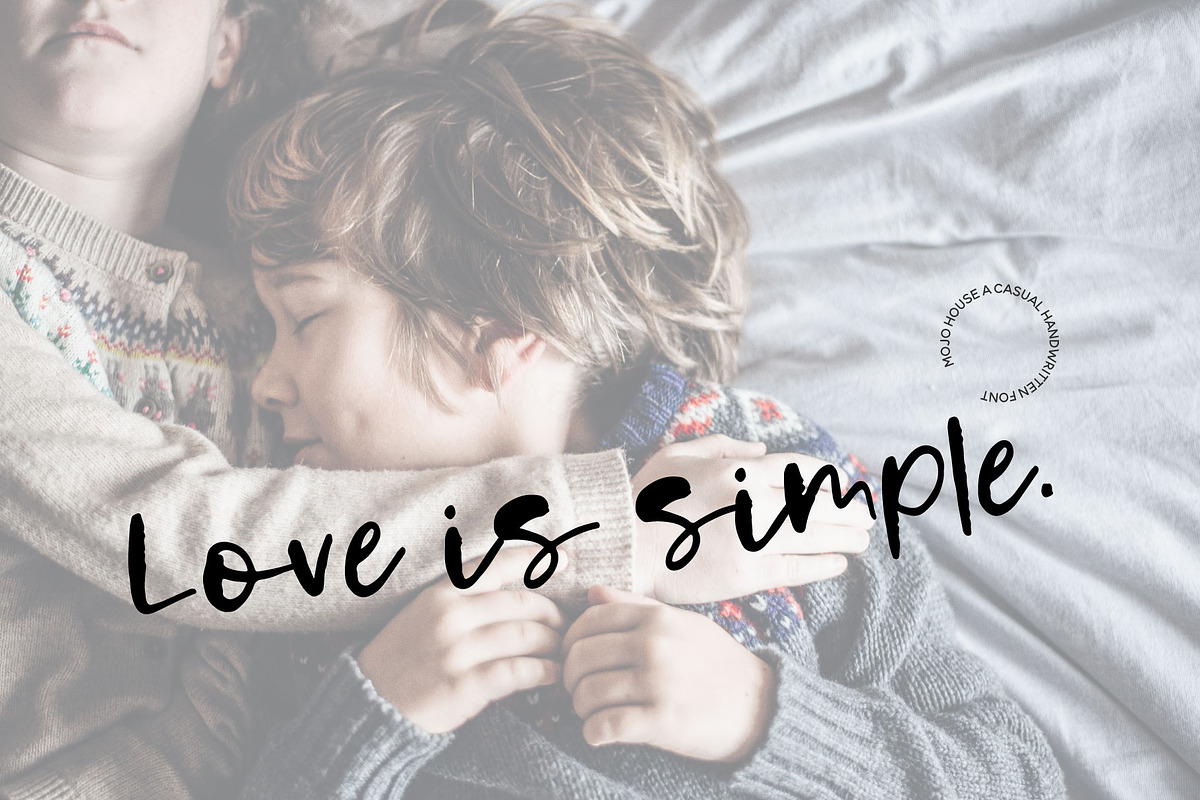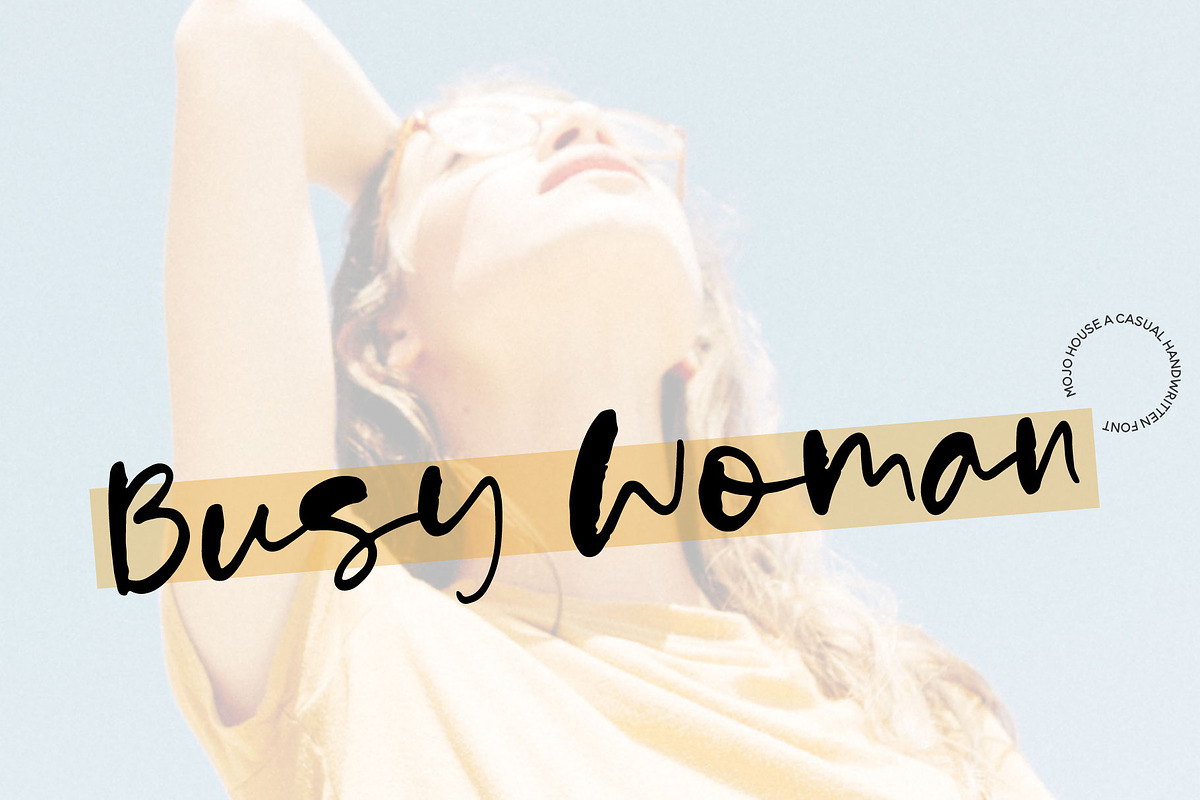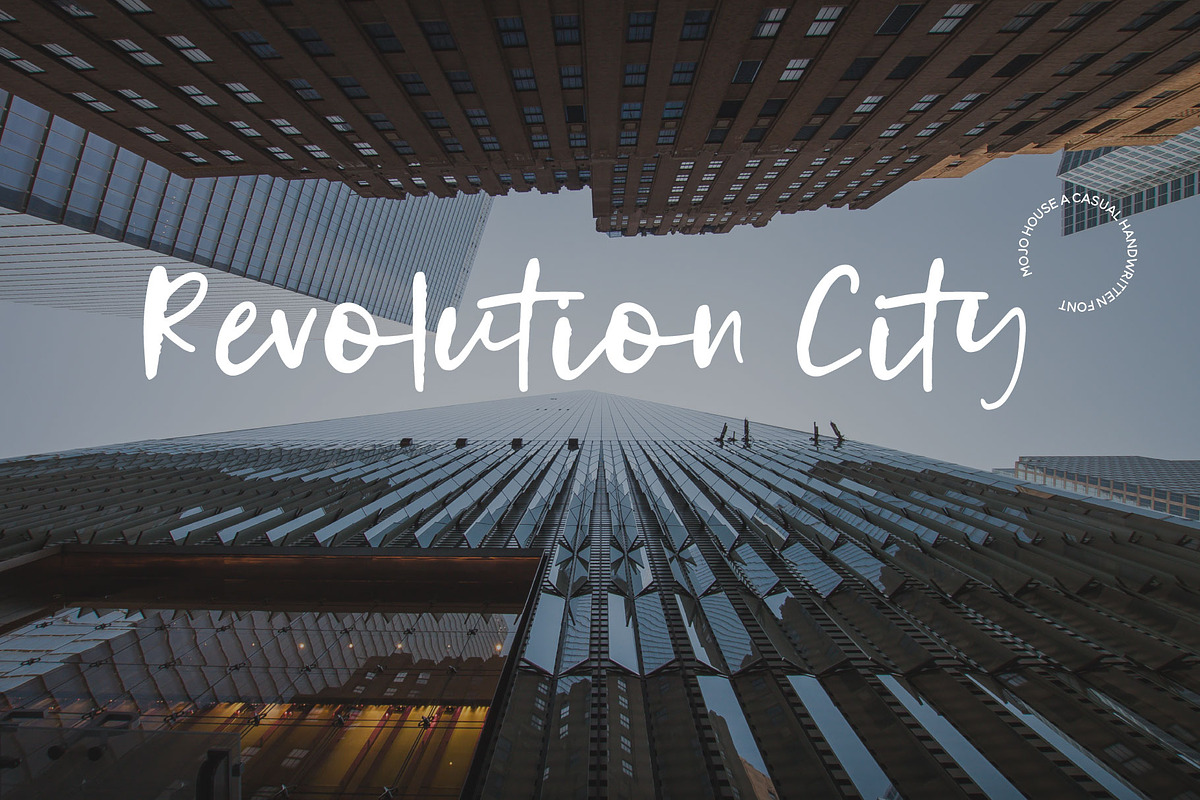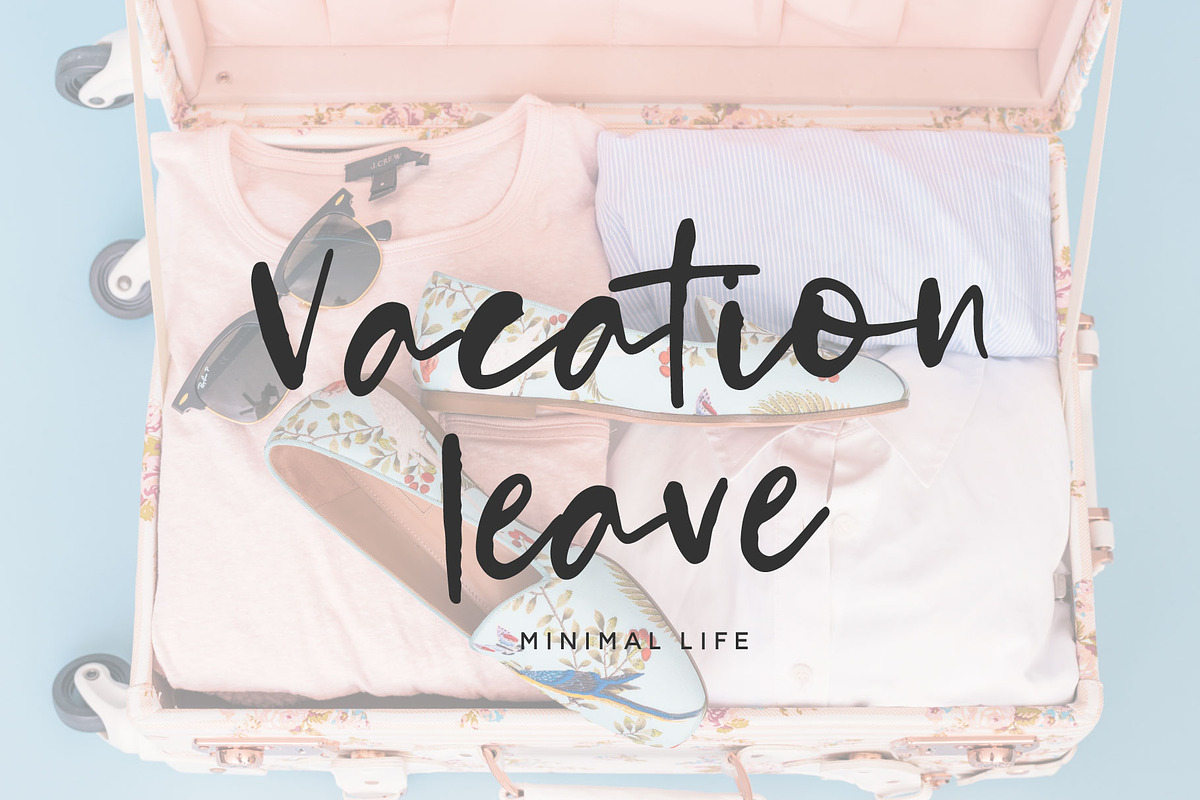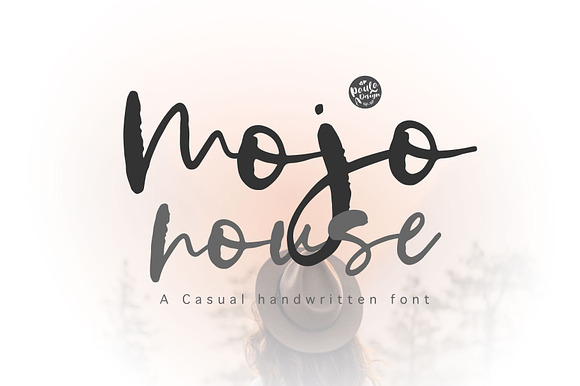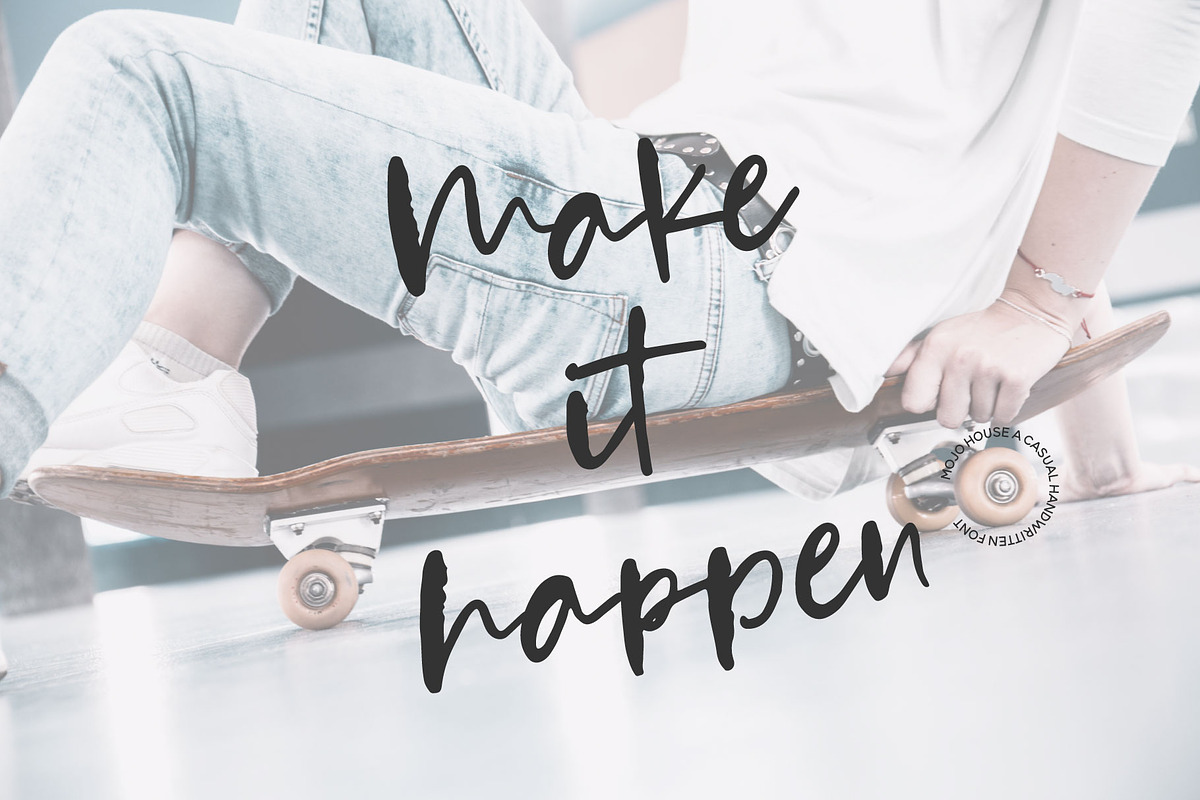
Mojo house | Handwritten Font
Introducing Mojo house - A Chic Brush Stylist font perfect for high impact headlines
Every single letter has been creative carefully and Perfectly Playful new font pair. This font is a perfect script designed for making your set of invitations, Brand, blog posts, and more completely beautiful